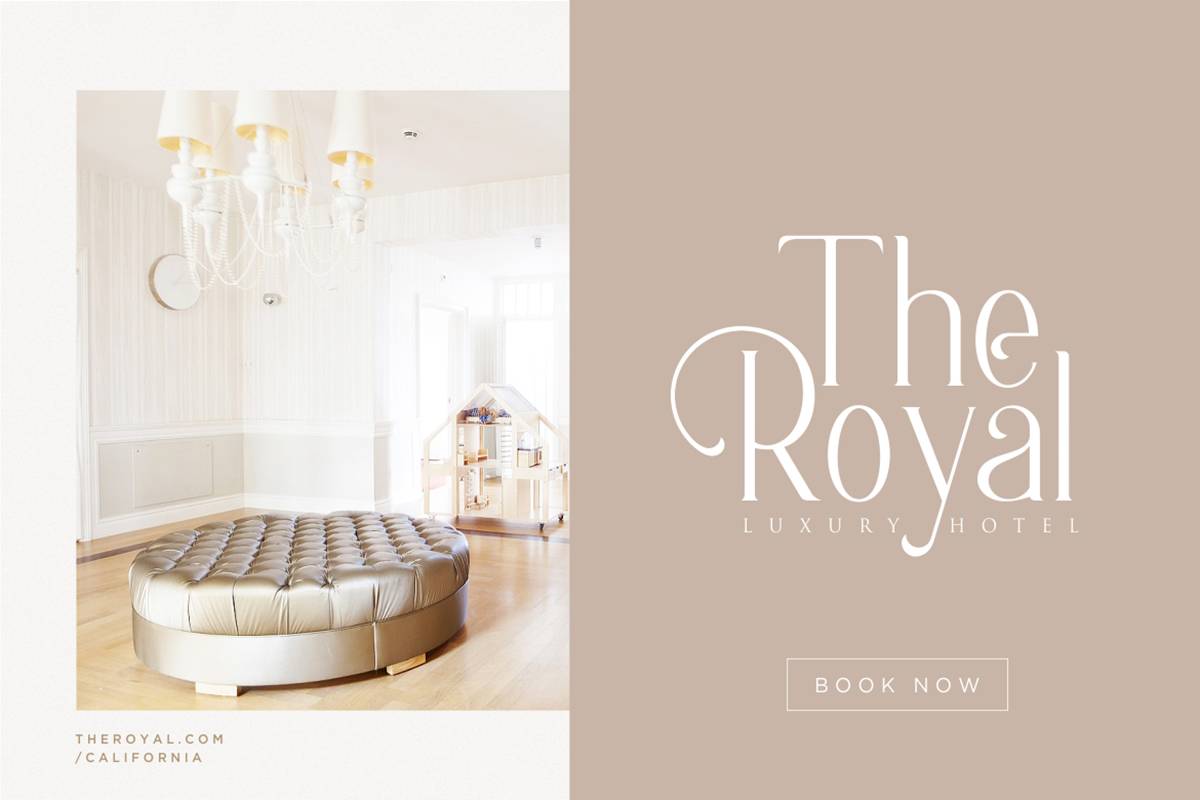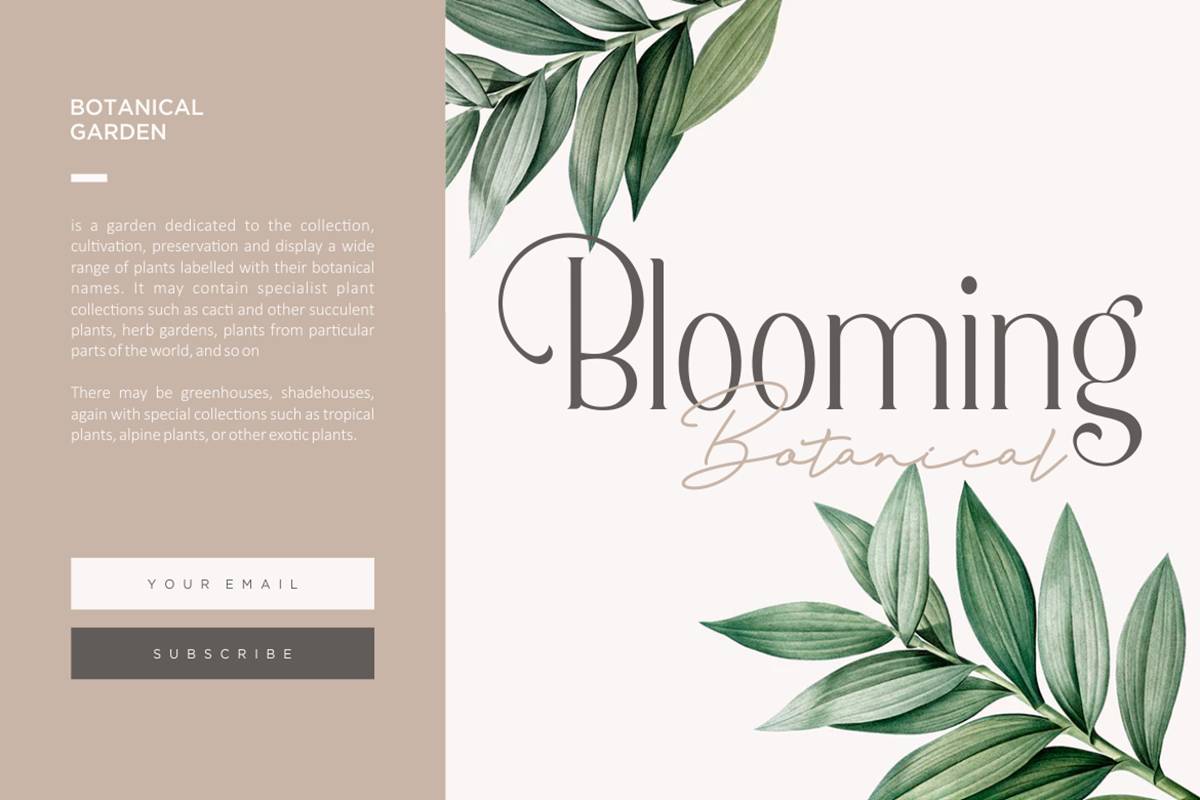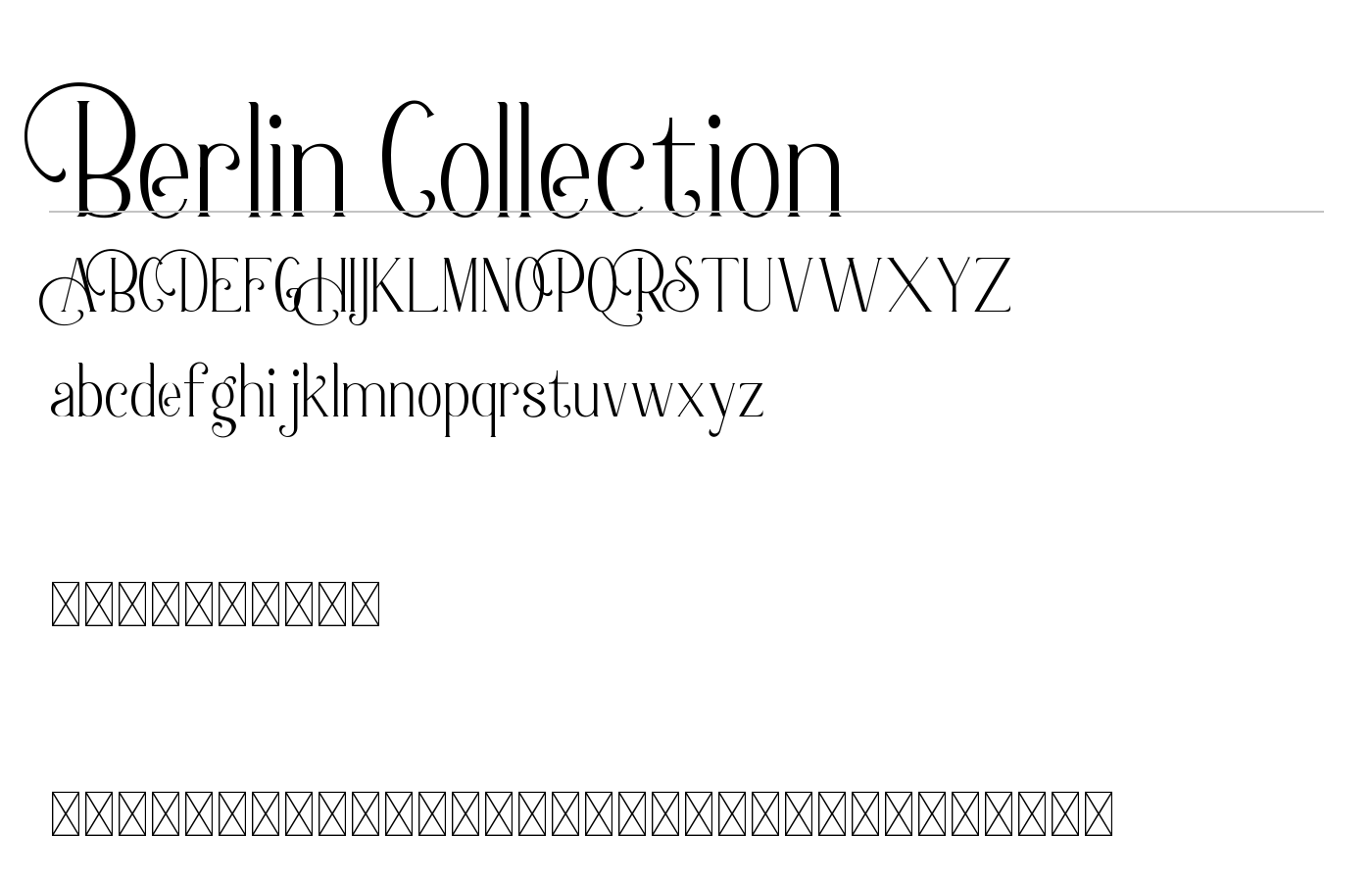
Berlin Font is an elegant serif typeface characterized by its tall, narrow letterforms and delicate high contrast strokes that combine thin vertical lines with slightly thicker curves. Its unique decorative swashes and refined details lend a vintage, sophisticated feel, making it ideal for luxury branding, fashion headlines, and stylish editorial projects where a graceful and distinctive look is desired.
Berlin Font
About Berlin Font